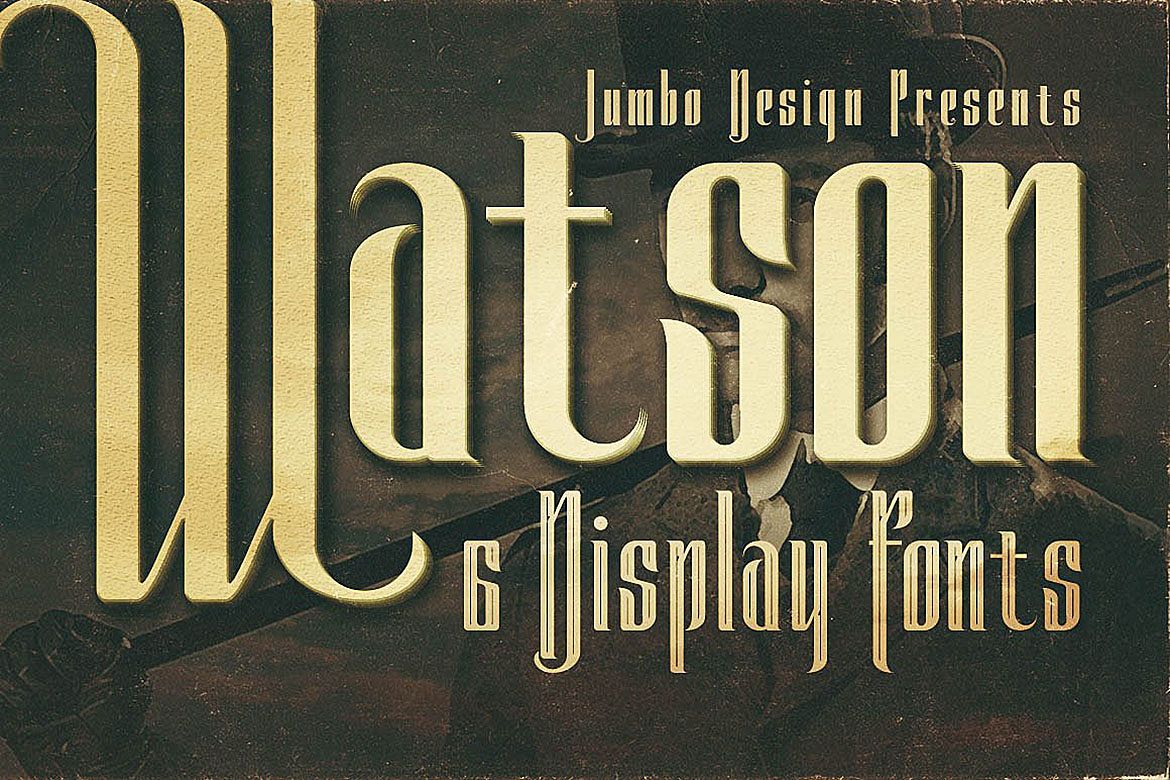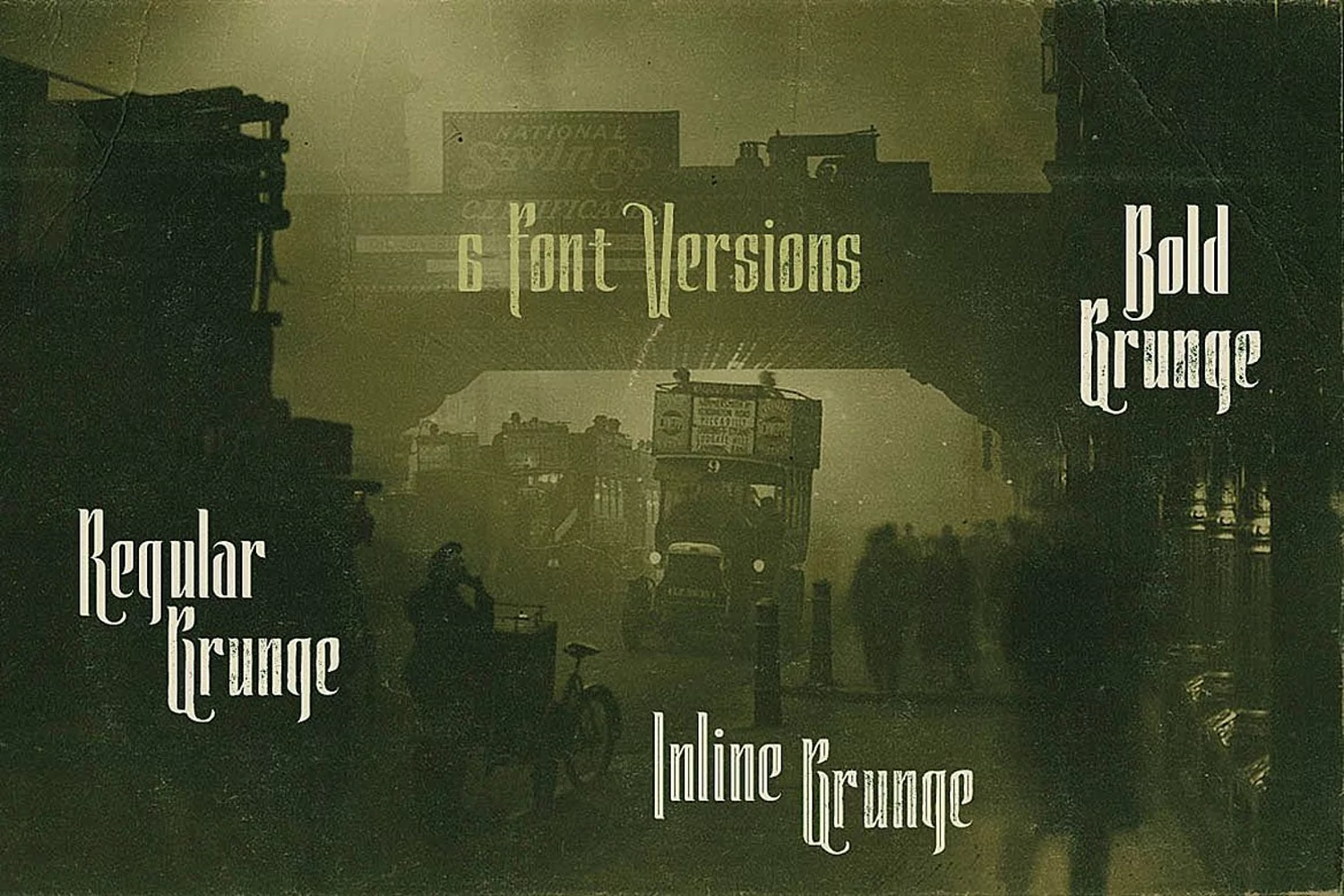
Watson - Vintage Display Font
Unique artdeco, retro or vintage style custom font with 6 styles: regular and grunge, inline and inline grunge, bold and bold grunge.